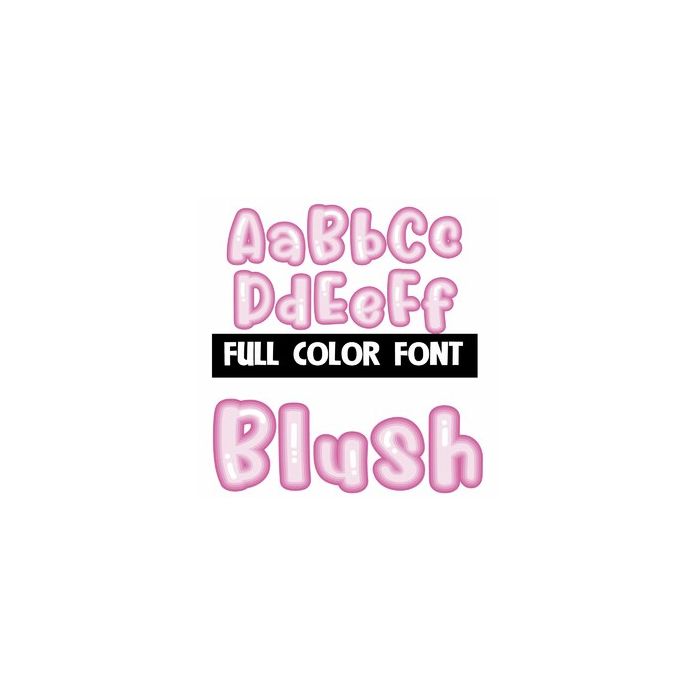
This full-color font features pink letters in multiple tints. This font works best for titles, displays, posters and more. Please note color fonts will show as black in non compatible programs. This font type is compatible with Silhouette Studio.